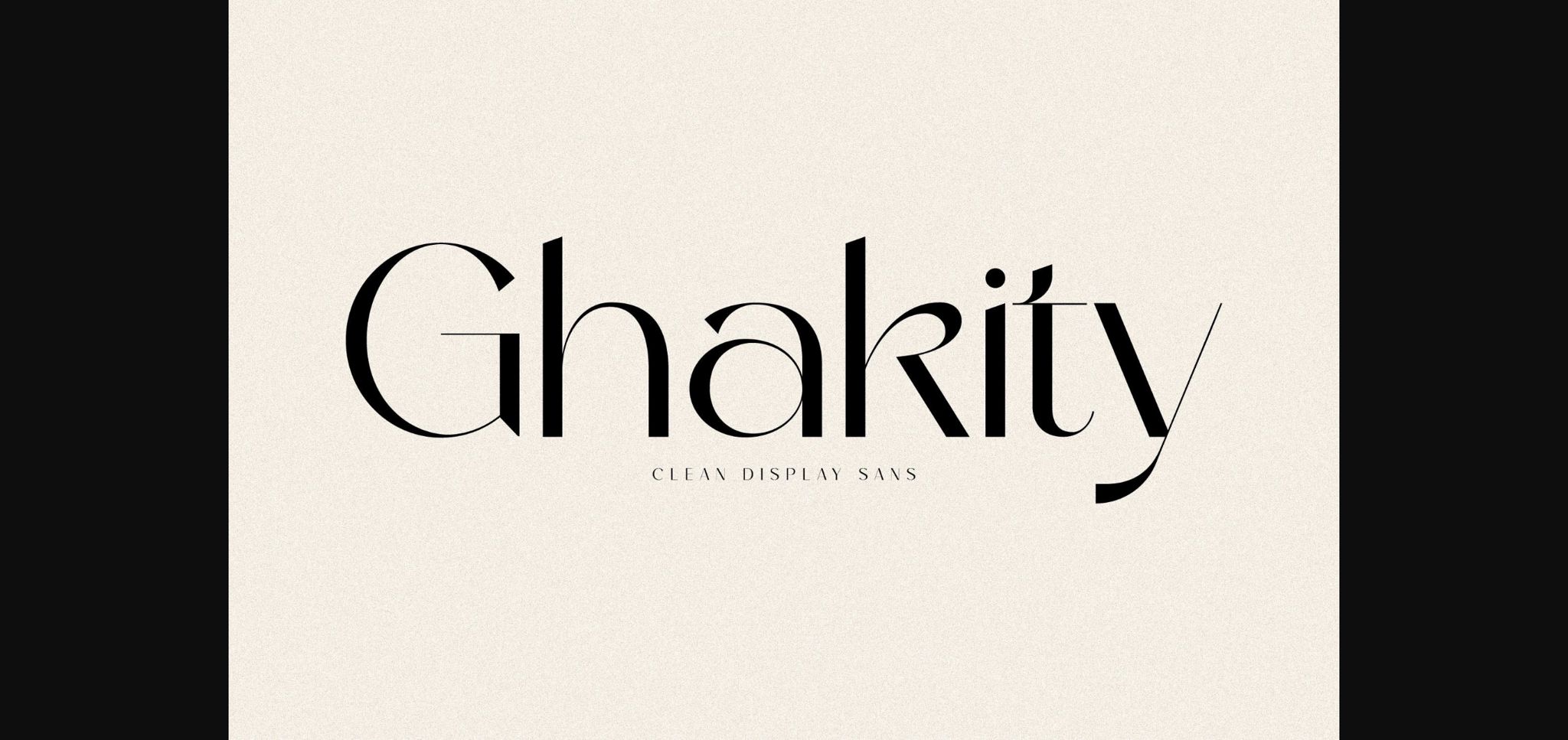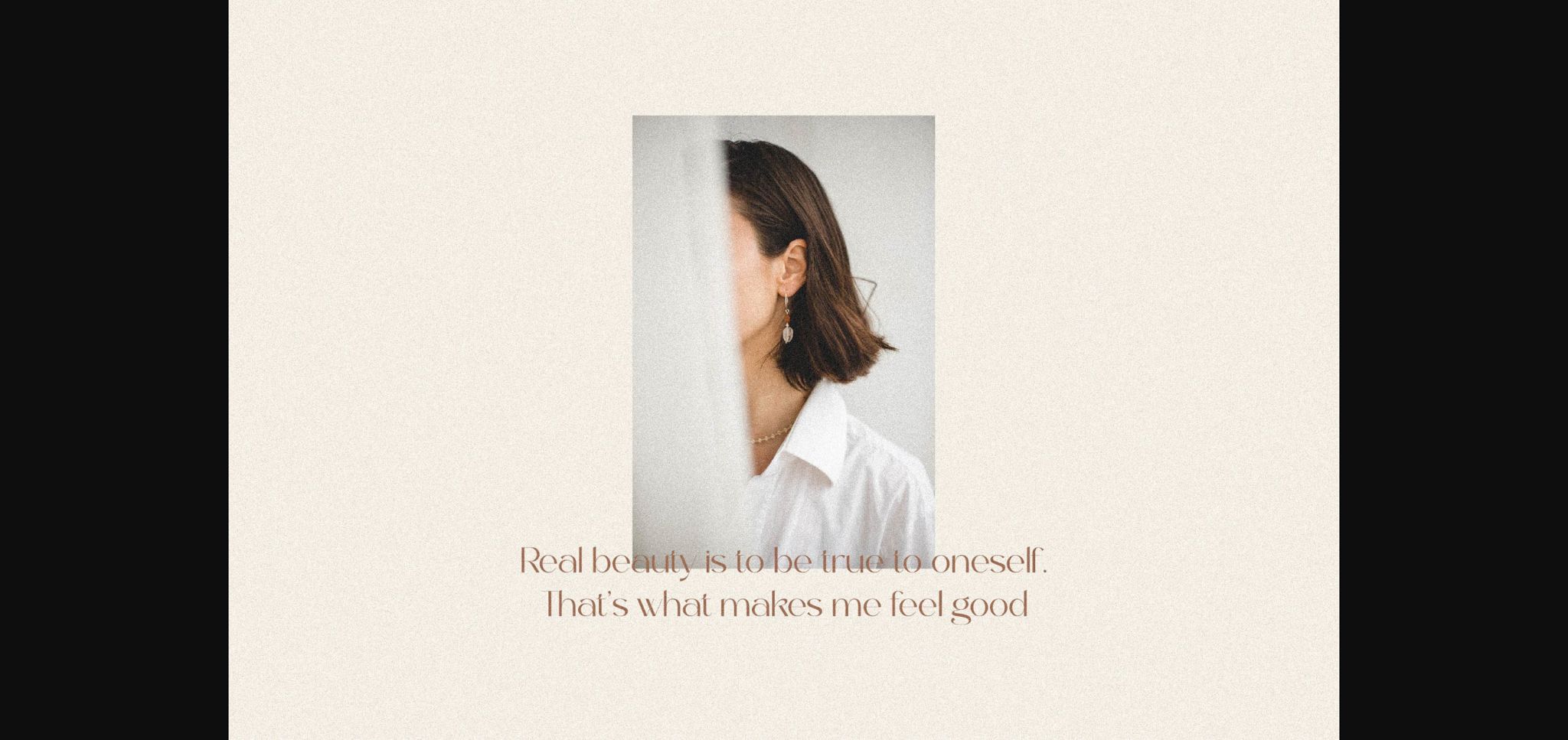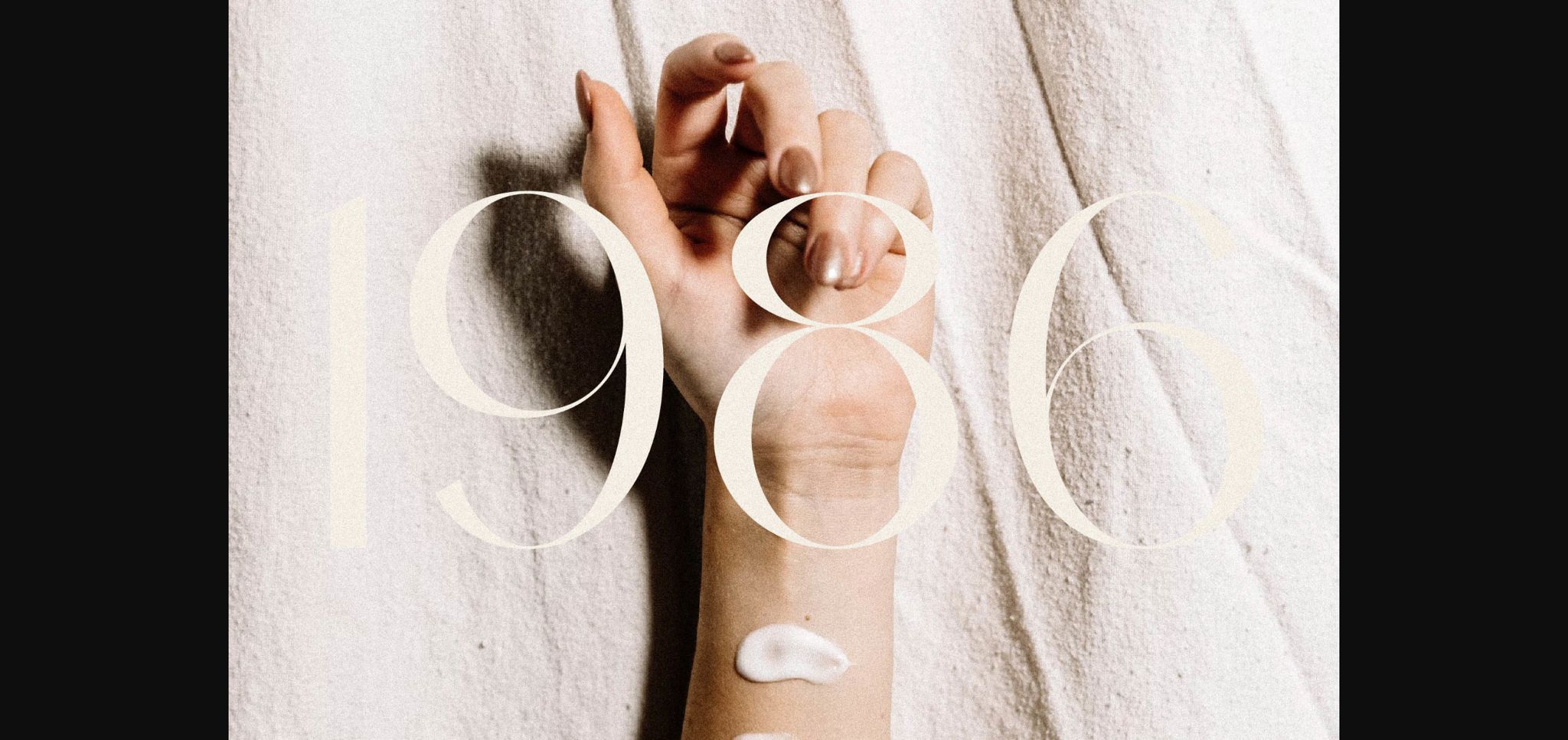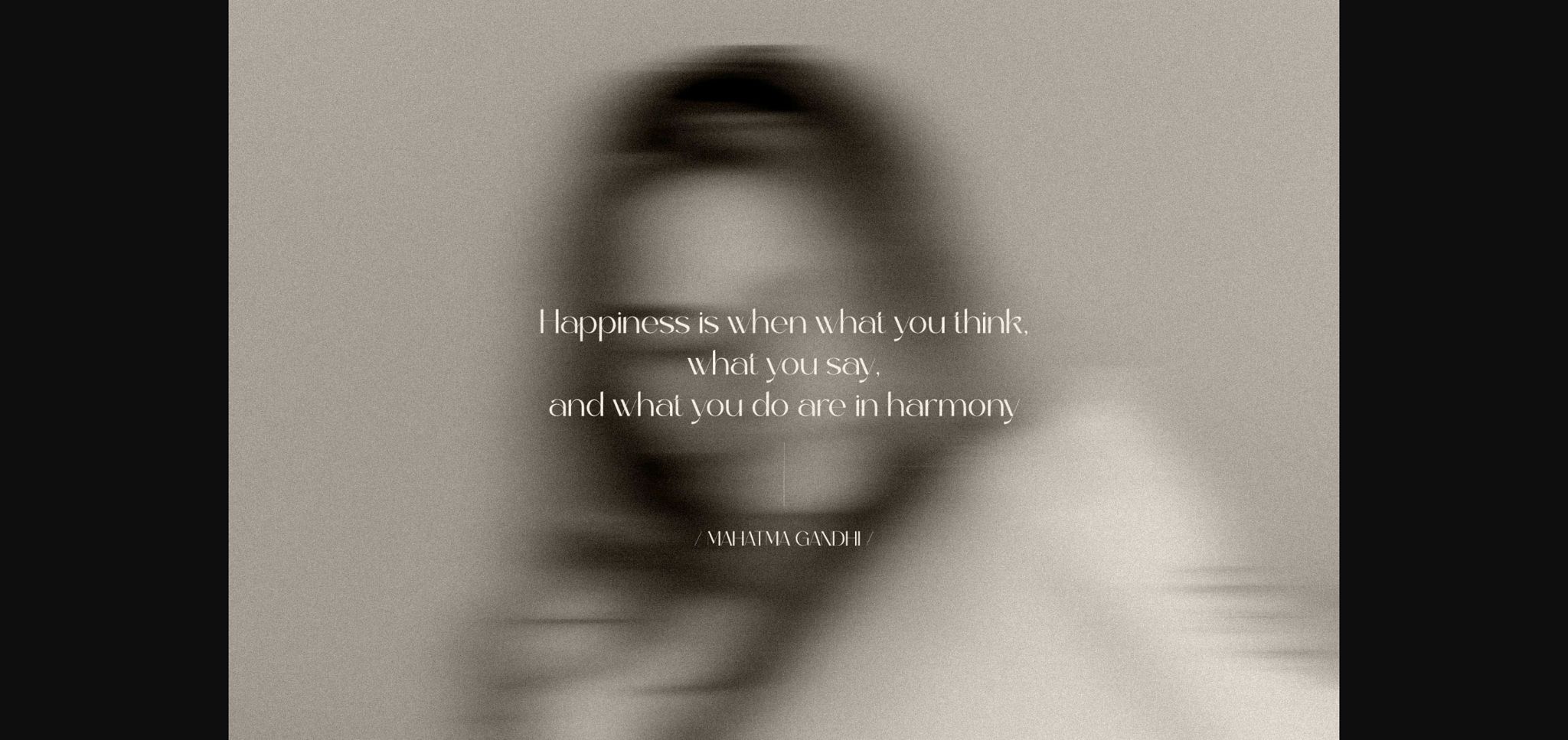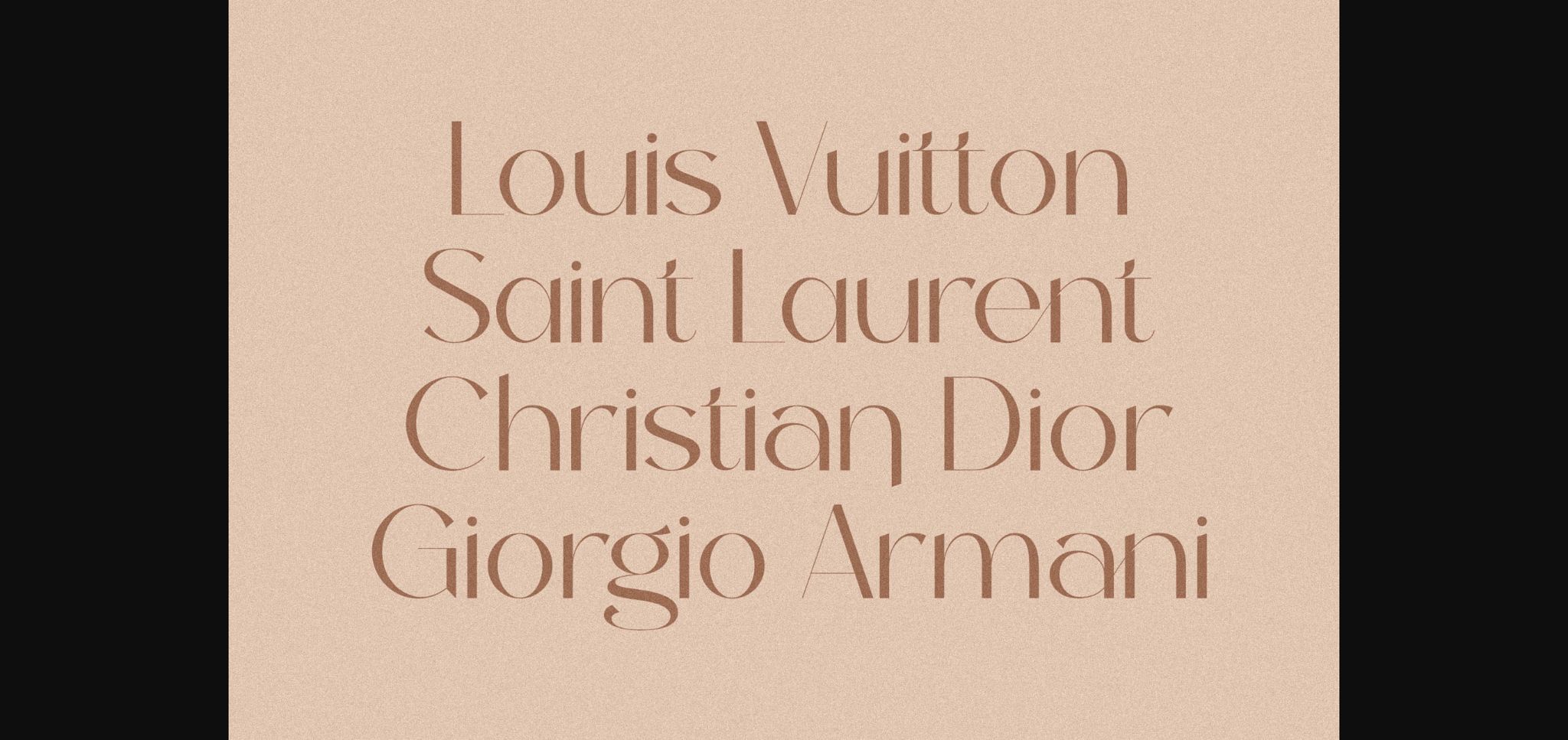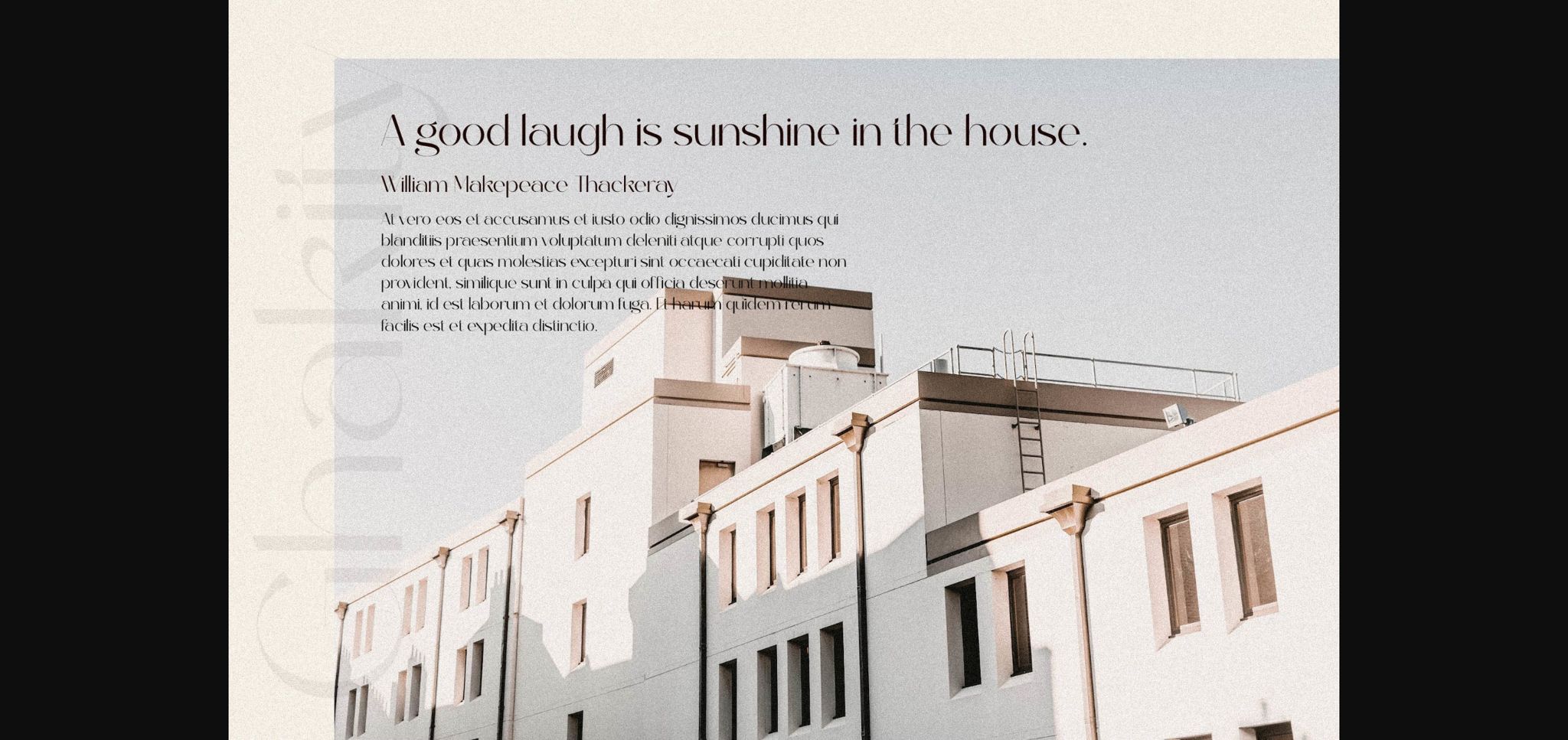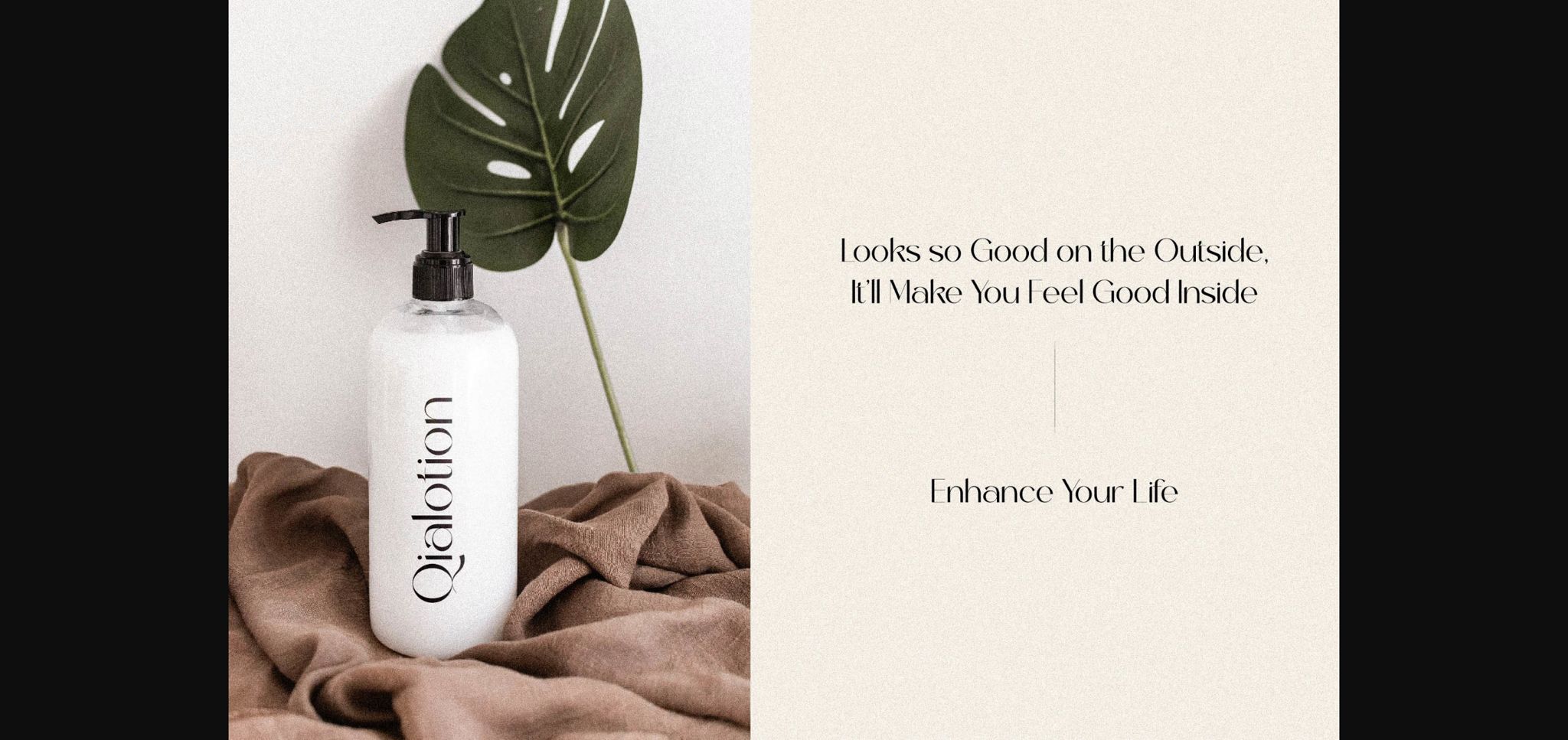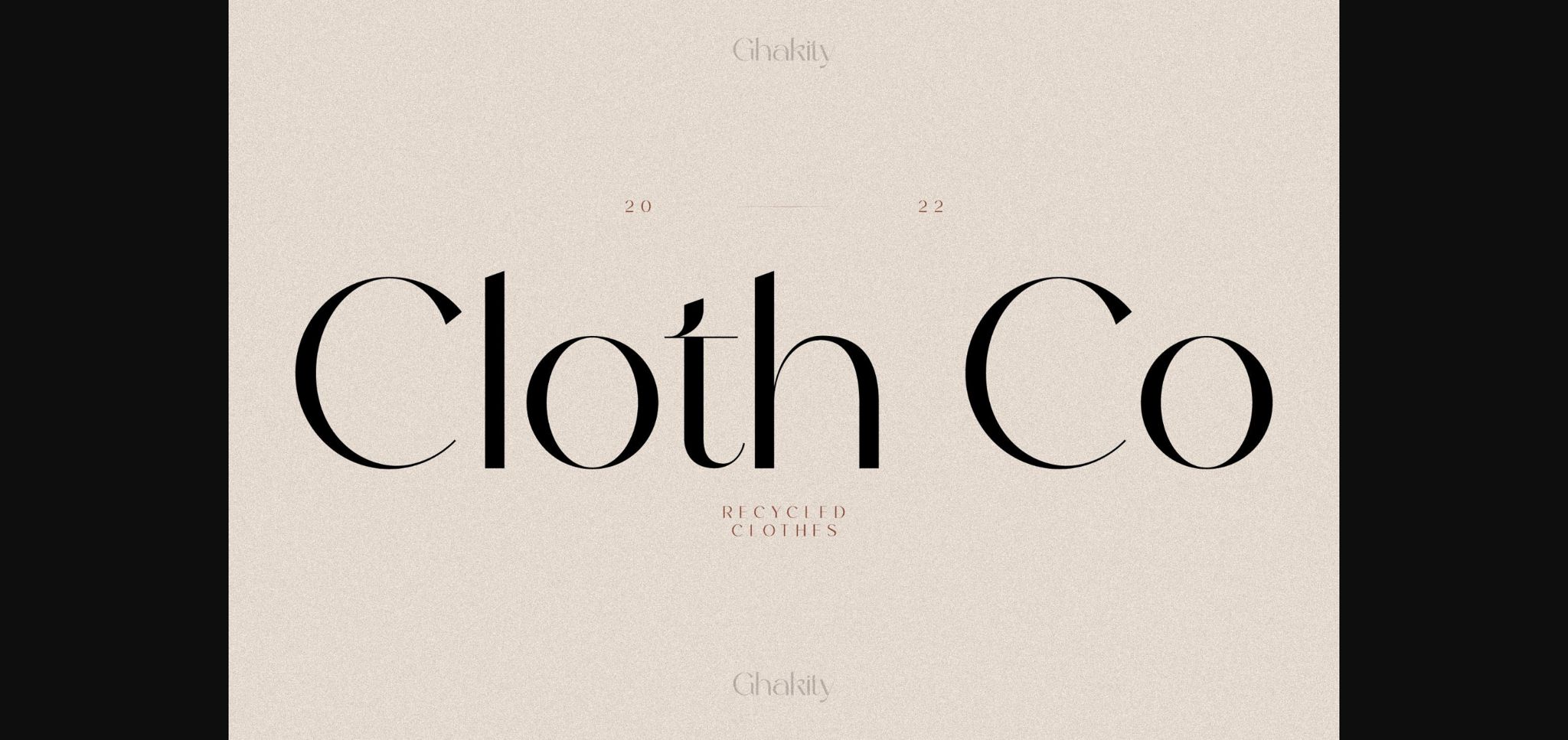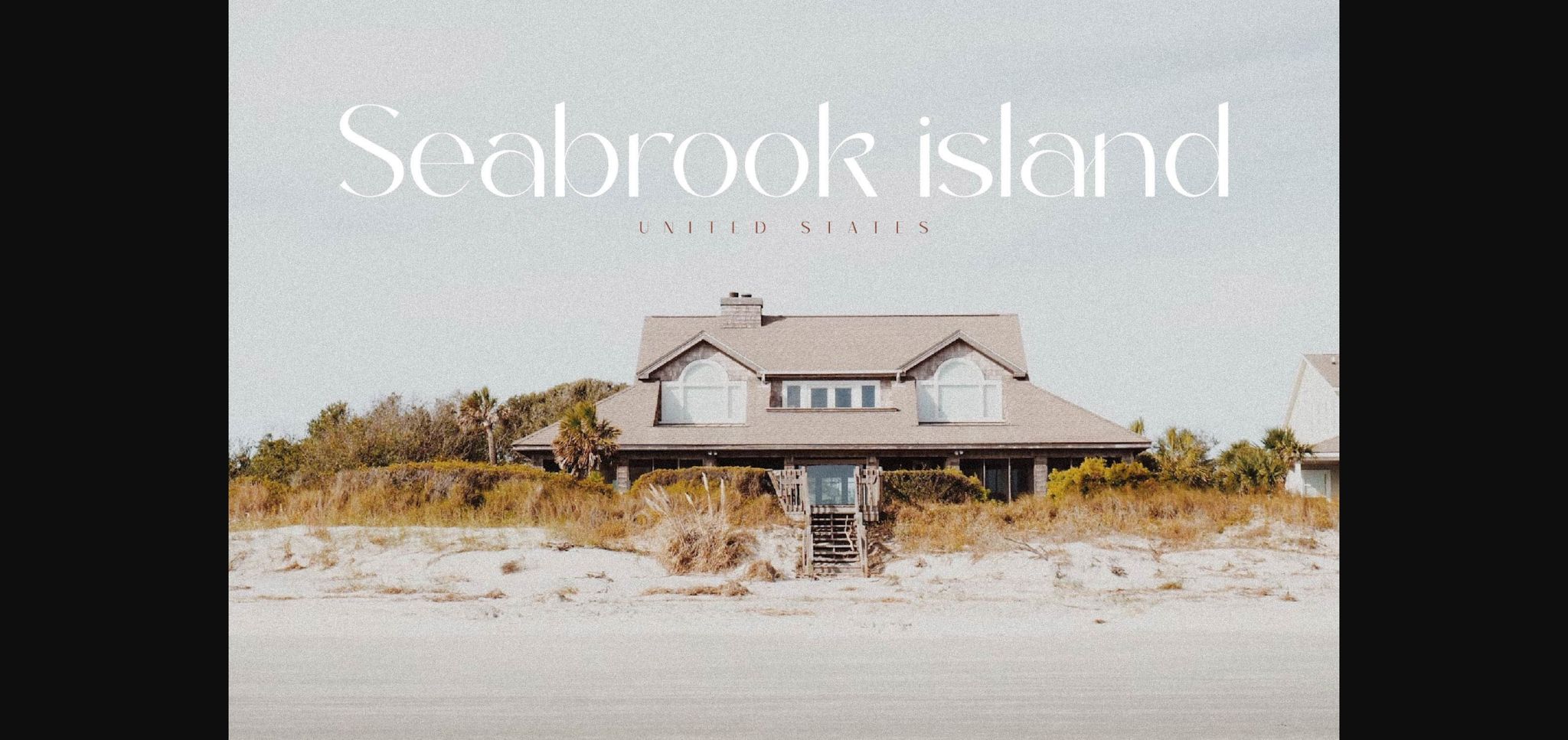
Ghakity Font
About Ghakity Font
Ghakity is a modern and classic sans serif font with a unique style and modern look.
This typeface is perfect for an elegant & luxury logo, book or movie title design, fashion brand, magazine, clothes, lettering, quotes, and so much more. This font is PUA encoded, which means you can access all of the glyphs and swashes with ease!